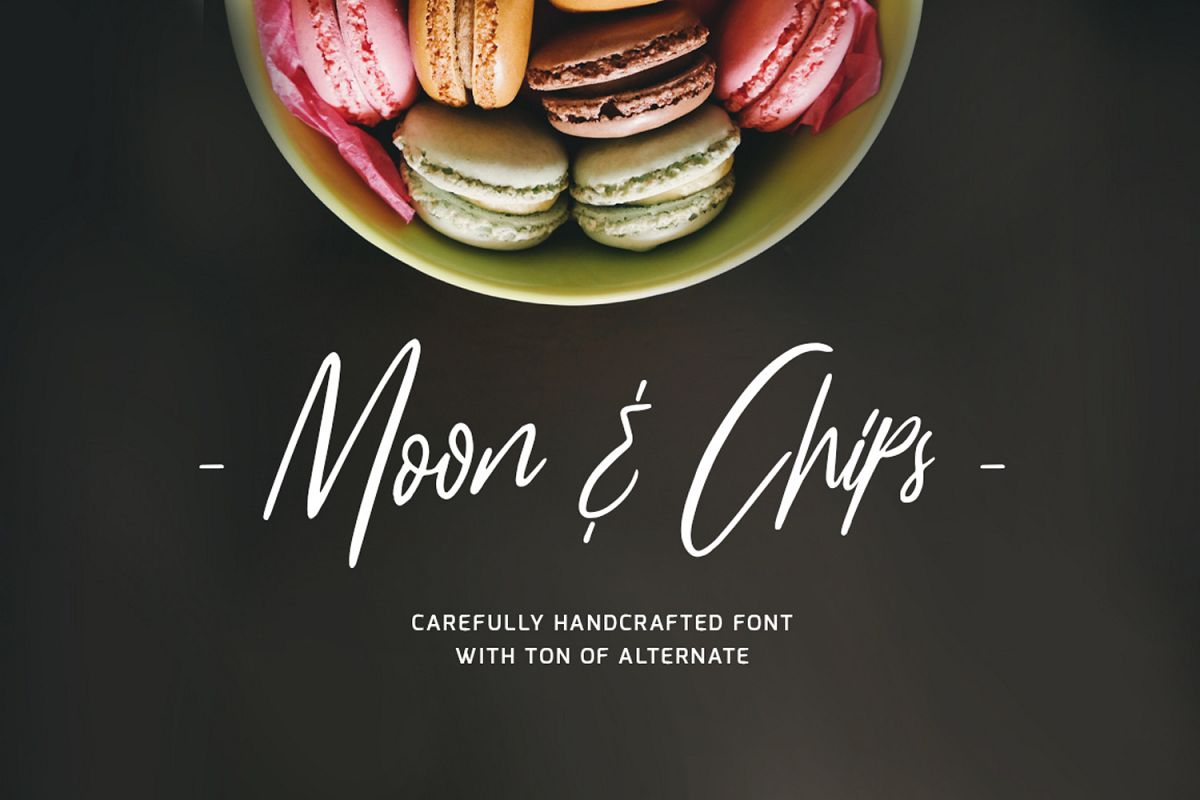
Moon & Chips
Let us to introduce our new font Moon & Chips a
new hand lettered typeface. Created for everyone love making something
beautiful, and special who loved to make a chips and other snack. This
font is very personality and suitable for your food project like
restaurant menu, bakery signage, etc. With ton of alternate you can use
them for every project and still look elegant.
Font Feature
• Lot of language was covered, See the list : Chiga, Congo Swahili,
Cornish, Croatian, Czech, Danish, English, Estonian, Faroese, Filipino,
Finnish, French, Galician, German, Gusii, Hungarian, Icelandic,
Indonesian, Irish, Italian, Kabuverdianu, Kalenjin, Kinyarwanda, Luo,
Luyia, Machame, Makhuwa-Meetto, Makonde, Malagasy, Malay, Manx,
Morisyen, North Ndebele, Norwegian Bokmål, Norwegian Nynorsk, Nyankole,
Oromo, Portuguese, Romansh, Rombo, Rundi, Rwa, Samburu, Sango, Sangu,
Sena, Shambala, Shona, Slovak, Slovenian, Soga, Somali, Spanish,
Swahili, Swedish, Swiss German, Taita, Teso, Turkmen, Vunjo, Zulu